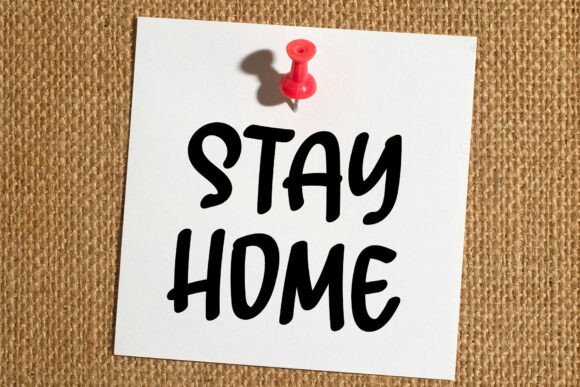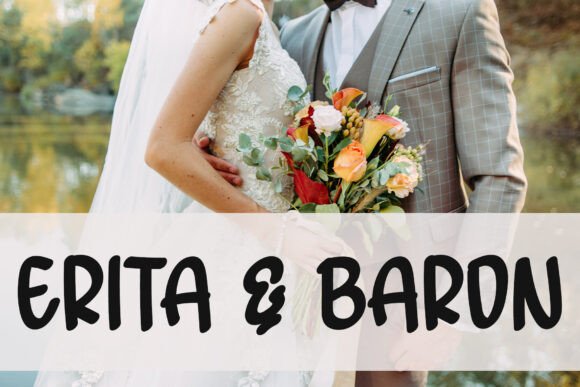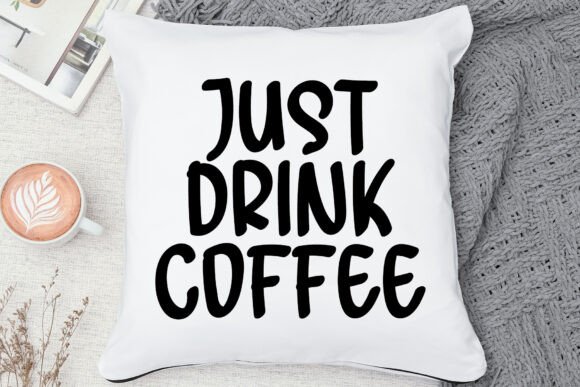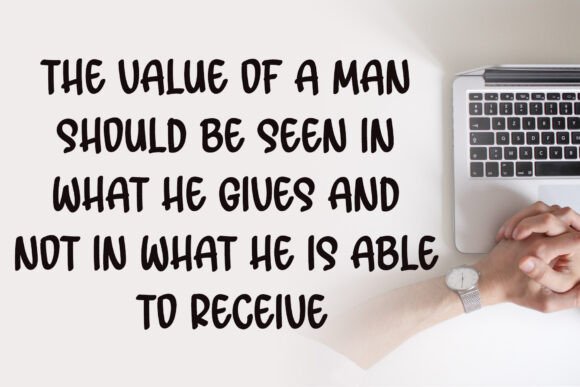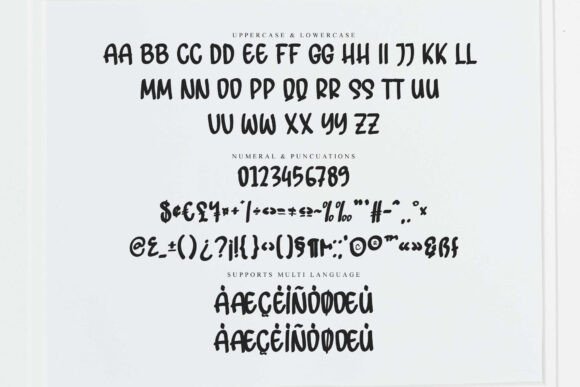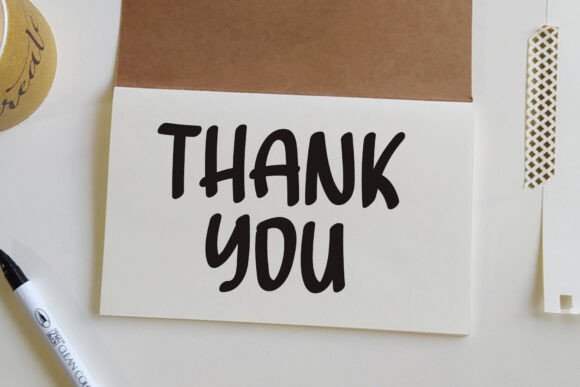
Introduction to Absolute Lovely Font
Absolute Lovely is a beautiful display font perfect for magazines and crafts.
Key Features of Absolute Lovely Font
Why Choose Absolute Lovely Font?